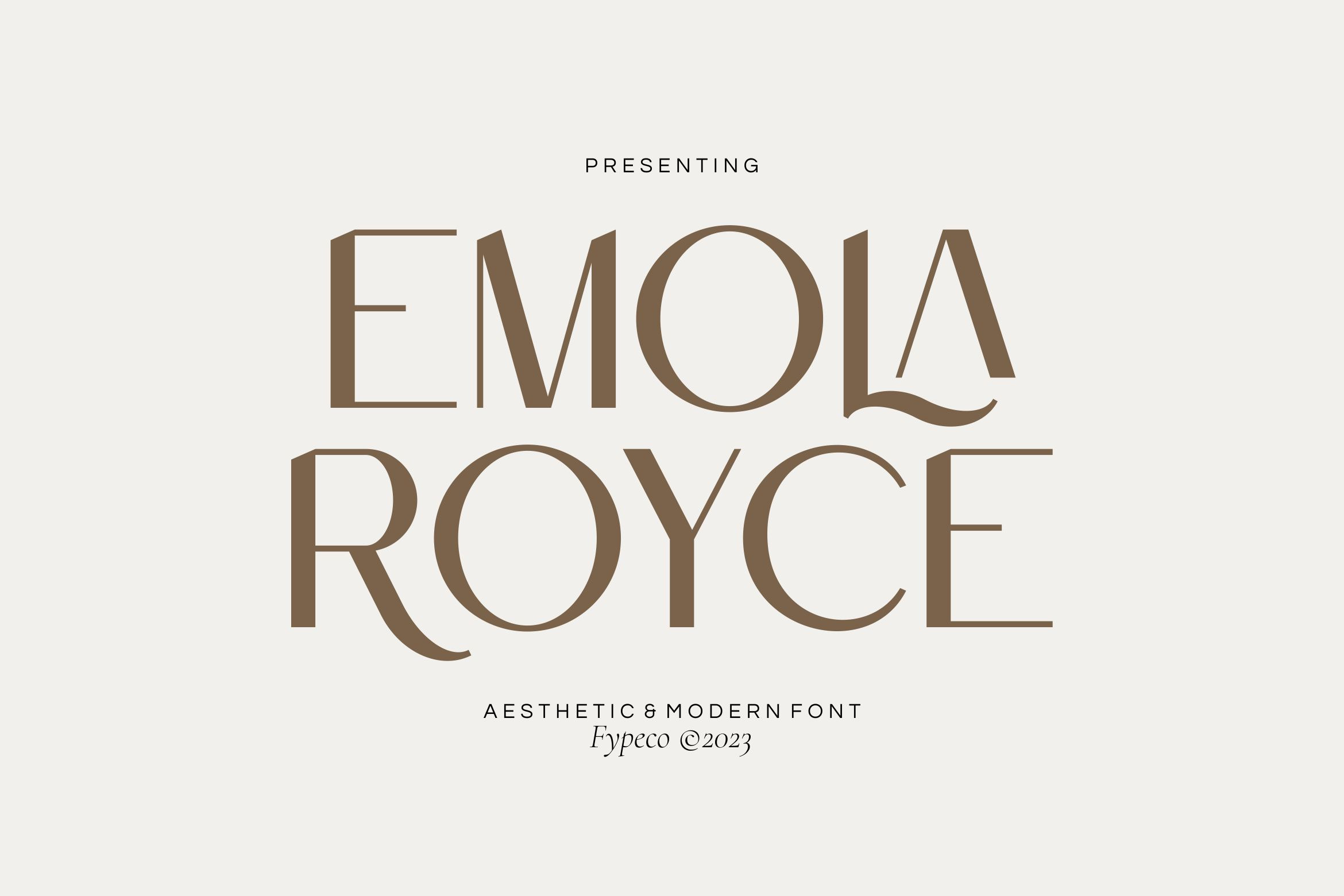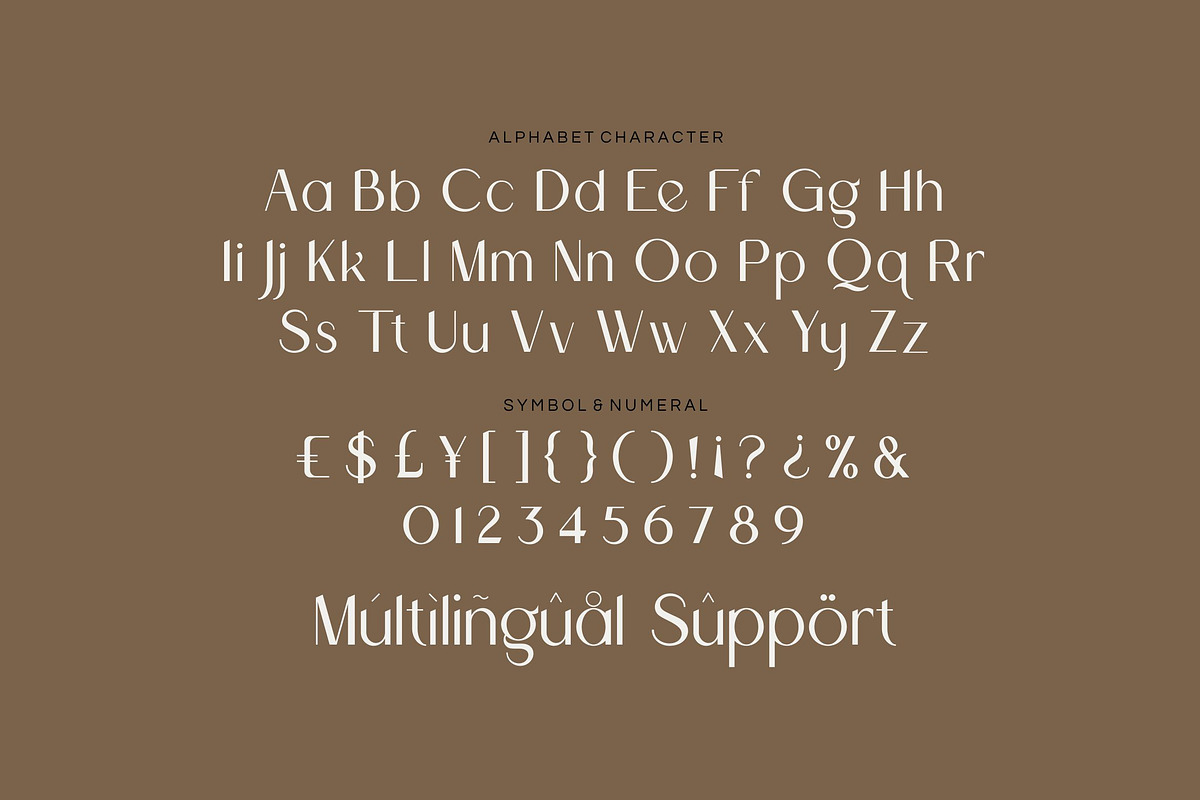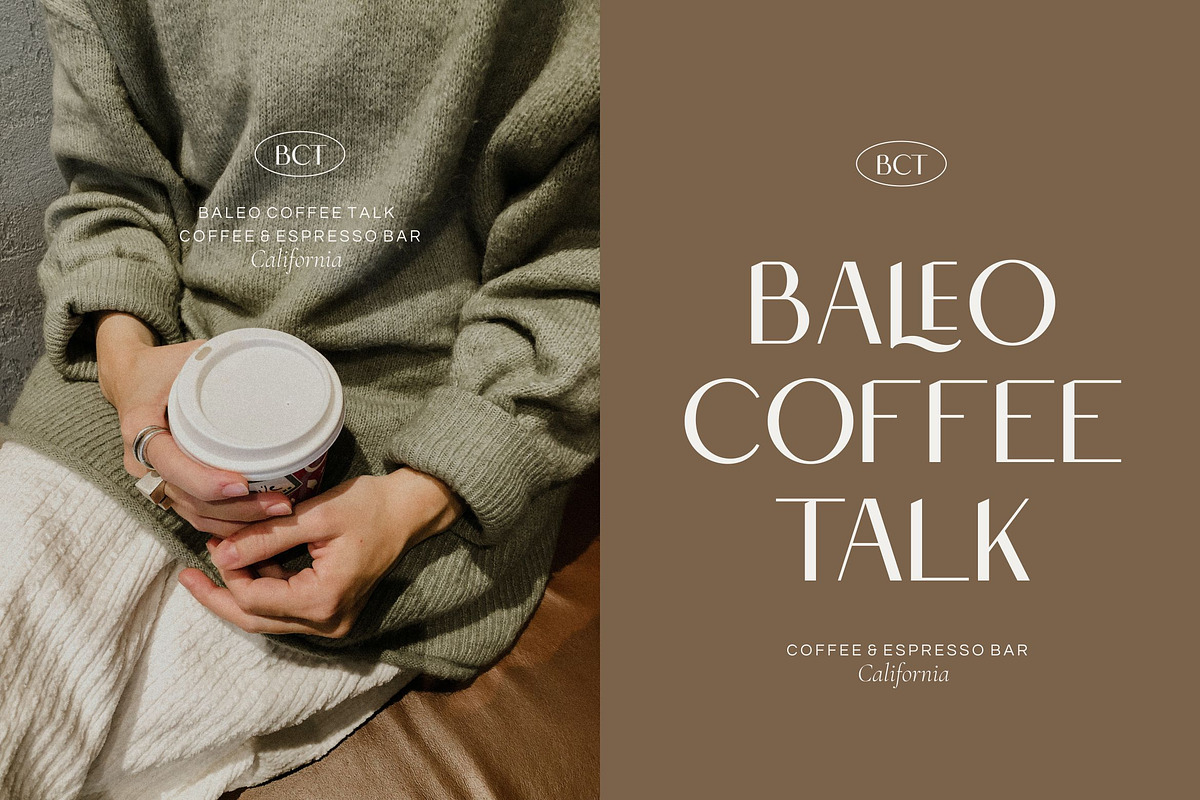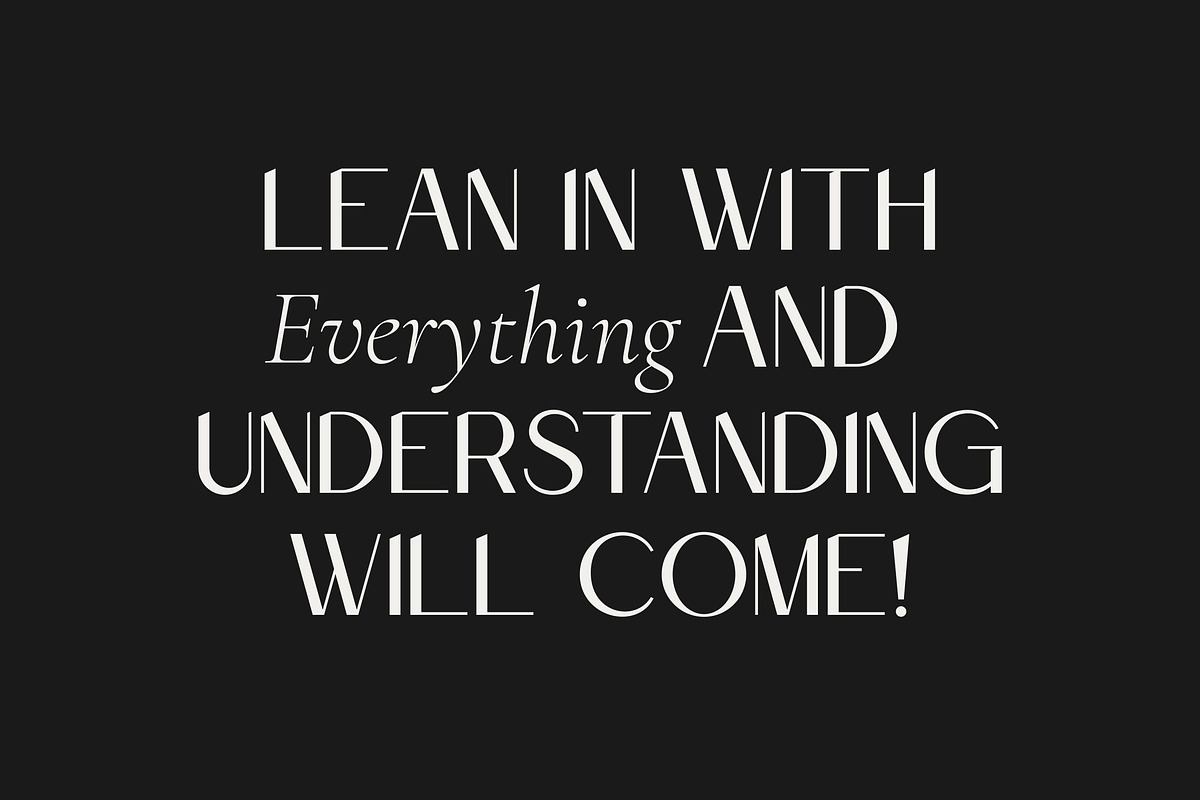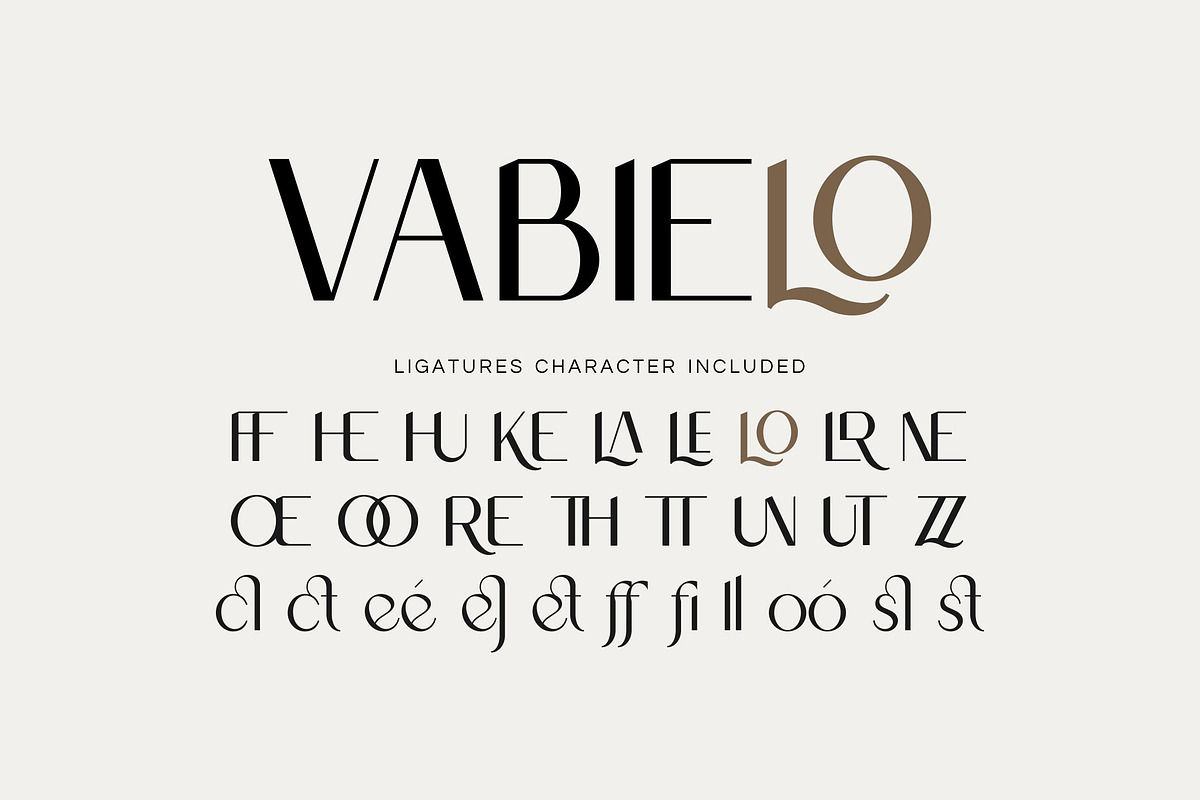
Emola Royce - Aesthetic Font
Emola Royce is a aesthetic & modern sans serif with simple, clean, and visual elegance. Specially designed for elegant-themed projects, perfectly suitable for creating simple, clean, lifestyle design such as logos, title, and magazine and more.